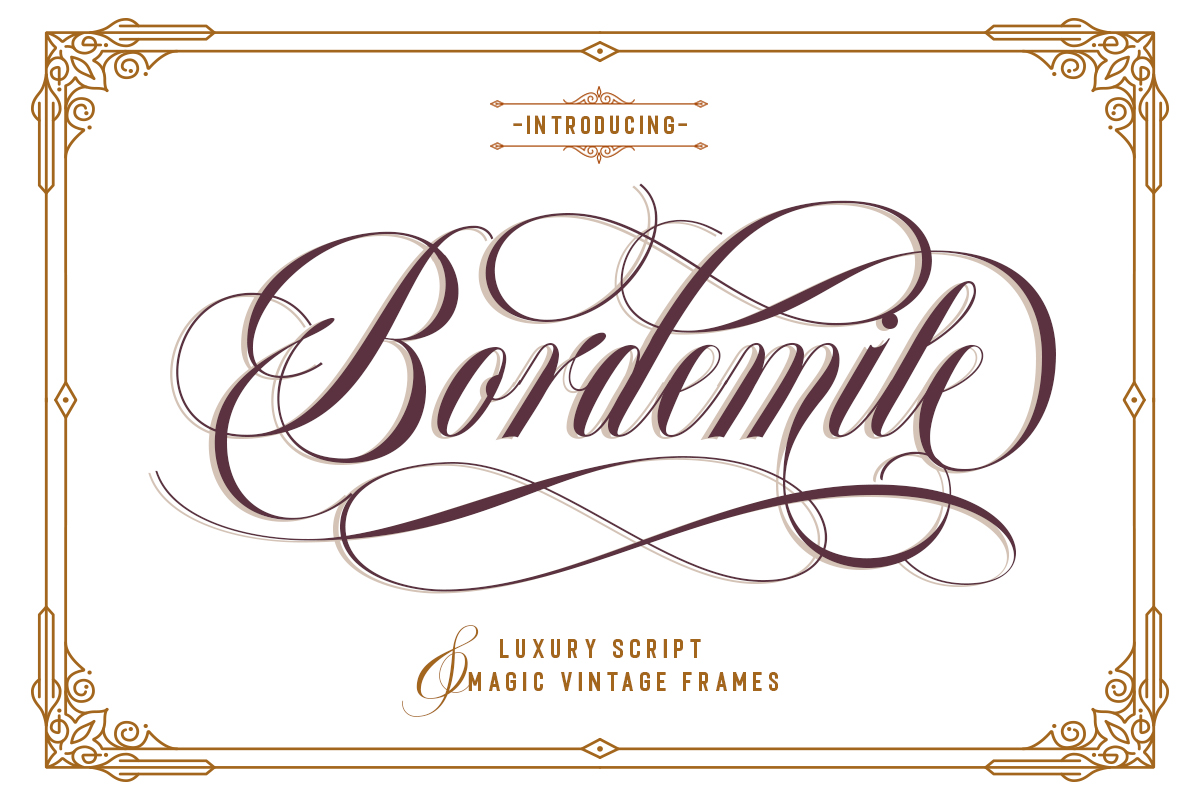
Bordemile Font
Bordemile Font is widely used in boutique fashion branding, artisanal product packaging, handcrafted jewelry labels, sophisticated wedding stationery, luxury lifestyle magazines, high-end restaurant menus, premium beauty product designs, and elegant corporate identity projects.
Bordemile Font is an exciting typeface that radiates refined sophistication with its graceful curves and distinctive elegance. This font embodies luxurious craftsmanship and artisanal quality, making it perfect for brands that want to convey exclusivity, premium quality, and sophisticated taste in their upscale visual communications.
The Bordemile Font family consists of Regular, Bold, Light, Italic, Thin, Medium, Condensed, and Ornate variants. This sophisticated collection allows designers to create elegant typographic systems that maintain luxury appeal while offering flexibility for various premium brand applications and refined design projects.
The distinctive refinement of Bordemile Font lies in its masterful balance between contemporary sophistication and timeless elegance. Each letterform demonstrates meticulous attention to detail with carefully sculpted curves and precise proportions that reflect artisanal craftsmanship. The font's graceful flow and subtle character variations create visual luxury that appeals to affluent audiences seeking authentic quality.
Luxury brands and premium service providers choose Bordemile Font for its ability to communicate exclusivity without appearing pretentious or inaccessible. The typeface performs beautifully in high-end fashion communications, luxury hospitality materials, premium cosmetics branding, and sophisticated lifestyle publications. Its elegant aesthetic resonates with consumers who appreciate refined taste and superior craftsmanship.
The artisanal excellence of Bordemile Font includes sophisticated ligatures, contextual alternates, and refined spacing that enhance the natural elegance of luxury typography. These premium features ensure that text maintains the sophisticated character and exclusive appeal essential to luxury brand communications while meeting the highest standards of professional design for upscale commercial applications.